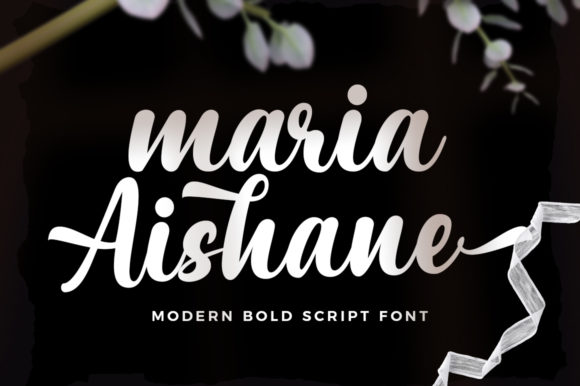
Step into the enchanting realm of Maria Aishane, a captivating script font that weaves a tapestry of grace and authenticity. Every letter, meticulously crafted with a delicate touch, exudes an air of timeless elegance. Experience the exquisite blend of classicism and modern flair, where the past meets the future in perfect harmony.
With Maria Aishane, your designs will transcend the ordinary, becoming masterpieces that captivate and inspire. Its enchanting curves and flowing lines evoke a sense of wonder, inviting you to unleash your creativity and let your imagination soar. Whether you seek to craft enchanting wedding invitations, design eye-catching logos, or pen heartfelt letters, Maria Aishane will elevate your words, infusing them with a touch of magic.
Journey through a world where beauty and functionality intertwine seamlessly. Maria Aishane's versatility extends beyond its captivating aesthetics. Its carefully balanced strokes ensure effortless readability, making it the ideal choice for both digital and print mediums. Let its timeless charm adorn your websites, brochures, social media posts, and more.
Indulge in the allure of Maria Aishane, a font that empowers you to express yourself with unparalleled elegance and originality. Embrace its enchanting embrace and watch as your designs flourish into works of art that leave an unforgettable mark. Experience the transformative power of Maria Aishane today and unlock the boundless possibilities of your creative vision.